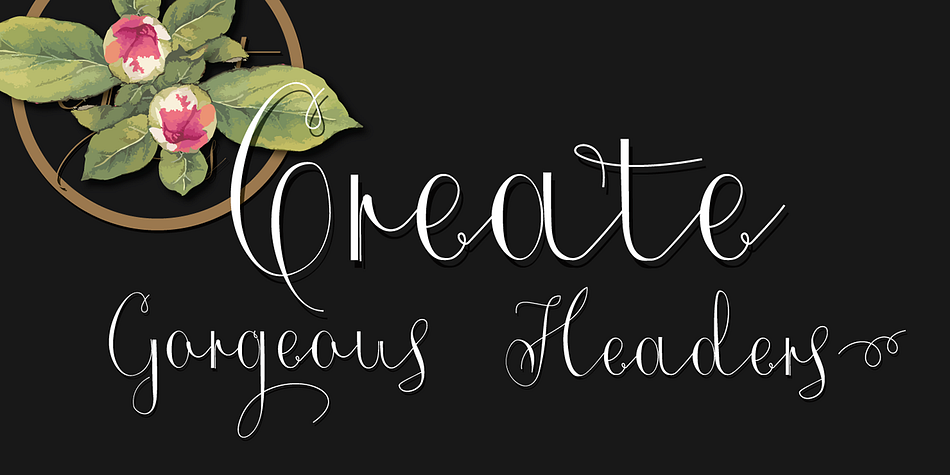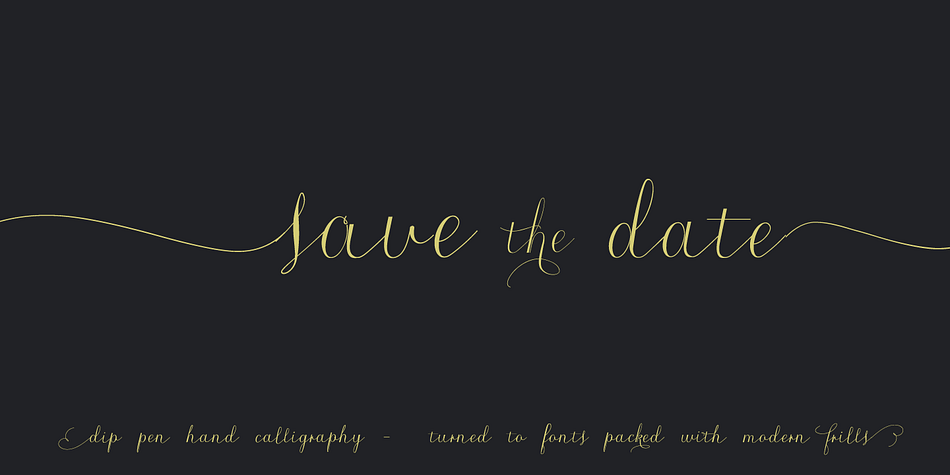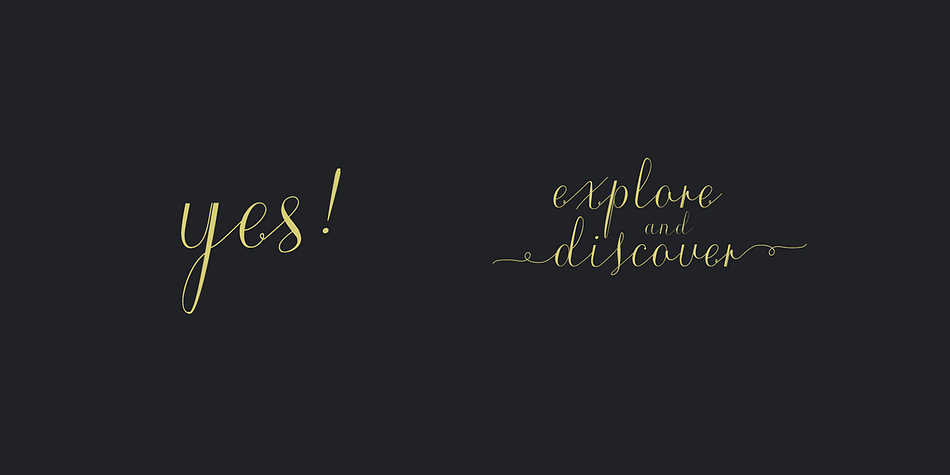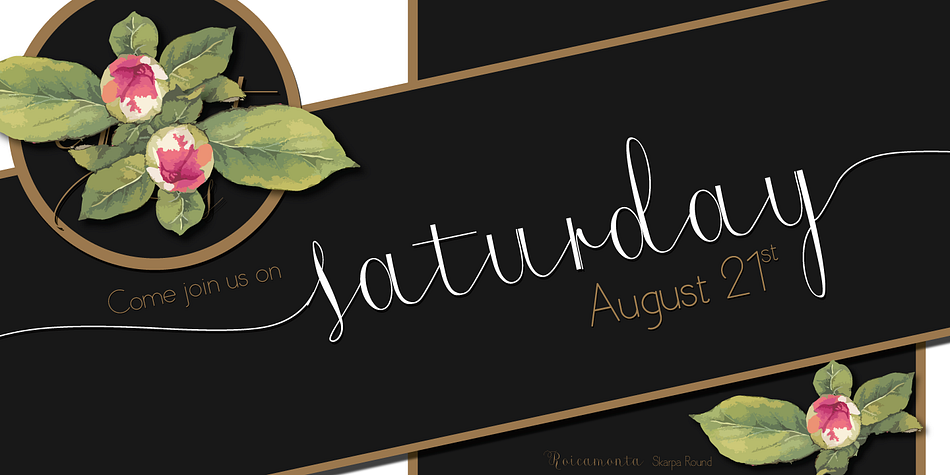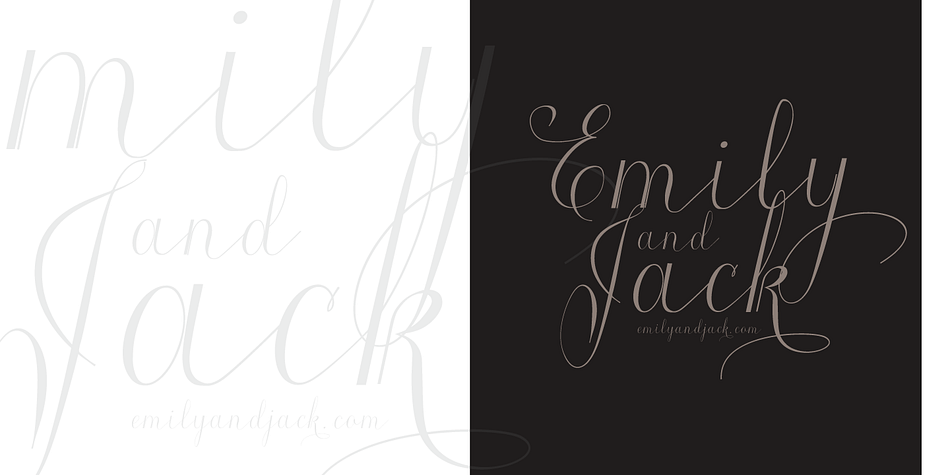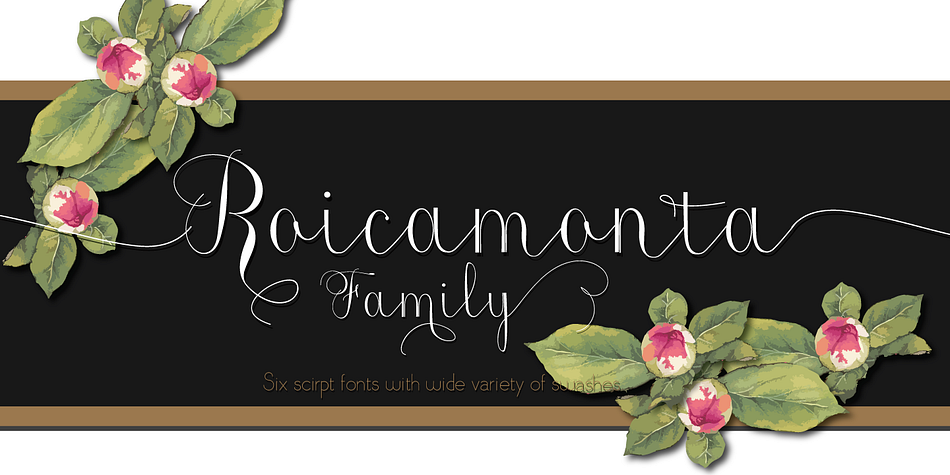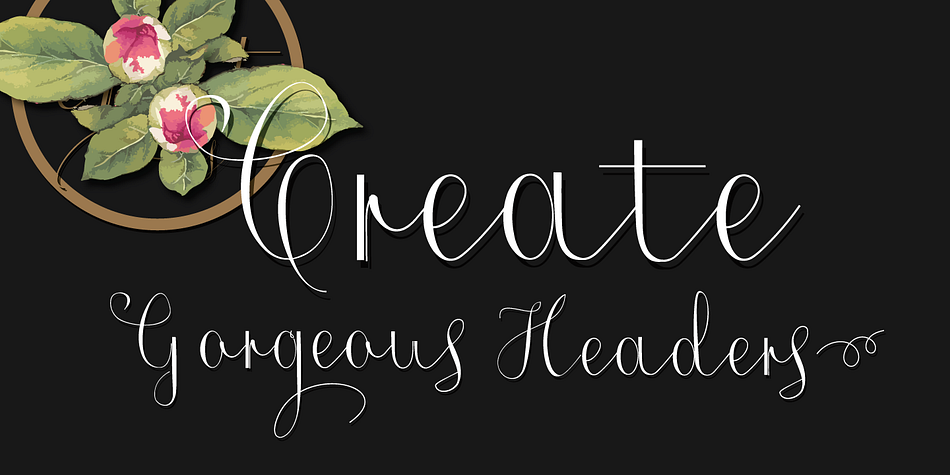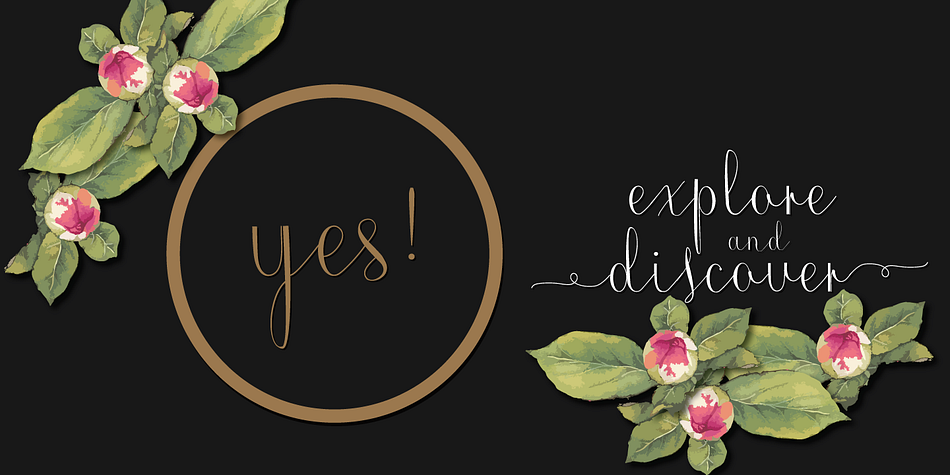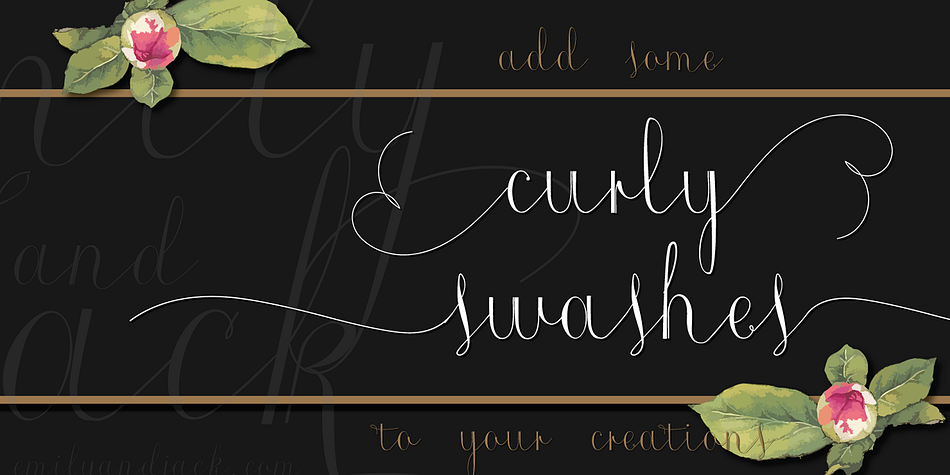
Roicamonta is a script and modern calligraphy font family. This typeface has six styles and was published by Aga Silva Fonts.
Roicamonta font looks very feminine and delicate. Perfect fit for invitations, greeting cards and other printing where soft and elegant writing is required. The design stems from Copperplate calligraphy and comes in two styles - upright and italic. This family consists of six font files overall, each file contains over 1200 glyphs. Complete with variety of swashes and fancy ligatures. All engineered and included in handy otf format.